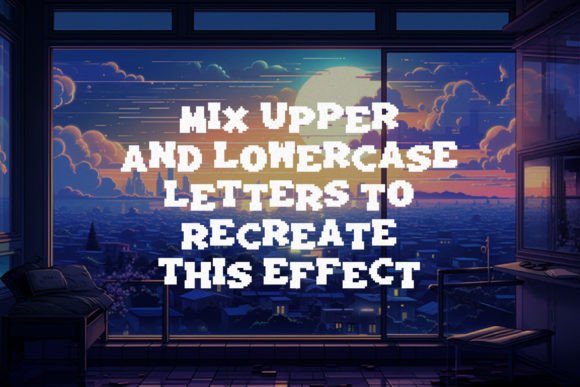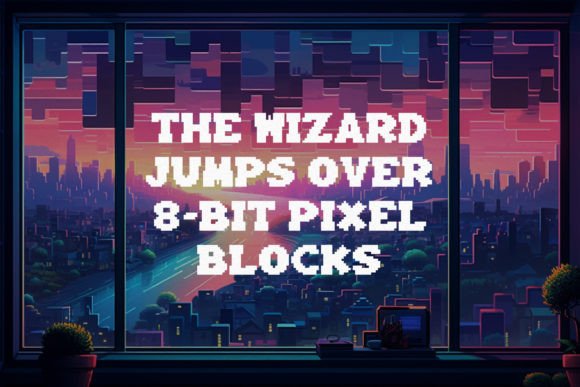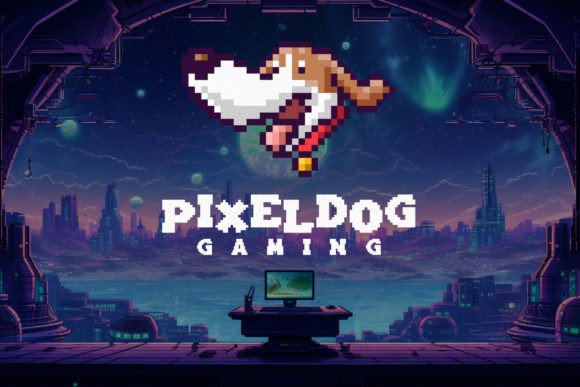
Introduction to Plump Pixel Font
Have you ever stumbled upon a font that instantly makes you feel like a kid again, transported to a world of vibrant colors and nostalgic charm? For designers and gamers alike, the Plump Pixel Font is that magical discovery that brings a smile to your face and a spring to your step. With its adorable, chubby characters, this 8-bit pixel font is a masterclass in whimsical design that elevates any creative project to new heights.
Whether you’re working on a retro-themed game, a design project that needs a dash of playfulness, or simply want to add some fun to your social media posts, the Plump Pixel Font is the perfect design resource. Its high-quality, transparent background makes it easy to integrate into any project, and the best part? It’s available for free download, making it an absolute must-have for any designer looking to add some personality to their work.
Key Features of Plump Pixel Font
- High-quality design: Plump Pixel Font is a carefully crafted pixel font designed for creative projects, offering a unique aesthetic that adds character to any design.
- Pixel-perfect design: As a pixel font, Plump Pixel Font is designed to be pixel-perfect, ensuring that it looks great at any size or resolution.
- Perfect for retro-style designs: The font’s unique pixelated aesthetic makes it an excellent choice for retro-style designs, video games, and other creative projects that require a nostalgic feel.
Honest Review: Plump Pixel Font
I recently had the chance to work with the Plump Pixel Font, and I must say it’s a delightful addition to any creative project. Its unique pixelated design adds a touch of nostalgia to modern digital art.
- High-quality design that’s perfect for retro-themed projects or pixel art.
- Unique pixelated design that adds a touch of character to any project.
However, I did find a few limitations ⚠️:
- The font may not be suitable for projects that require a more modern or sleek aesthetic.
- The pixelated design may not be ideal for small text sizes, as it can become difficult to read.
Overall, I’m thoroughly impressed with the Plump Pixel Font. Its unique design and high-quality construction make it a valuable addition to any design toolkit. I’d definitely recommend it to anyone looking to add some personality to their creative project ✨.
The Plump Pixel Font is a versatile design resource that can be used in a variety of creative projects, including graphic design, web design, and digital art. It’s also a great resource for creating logos, icons, and other visual elements.